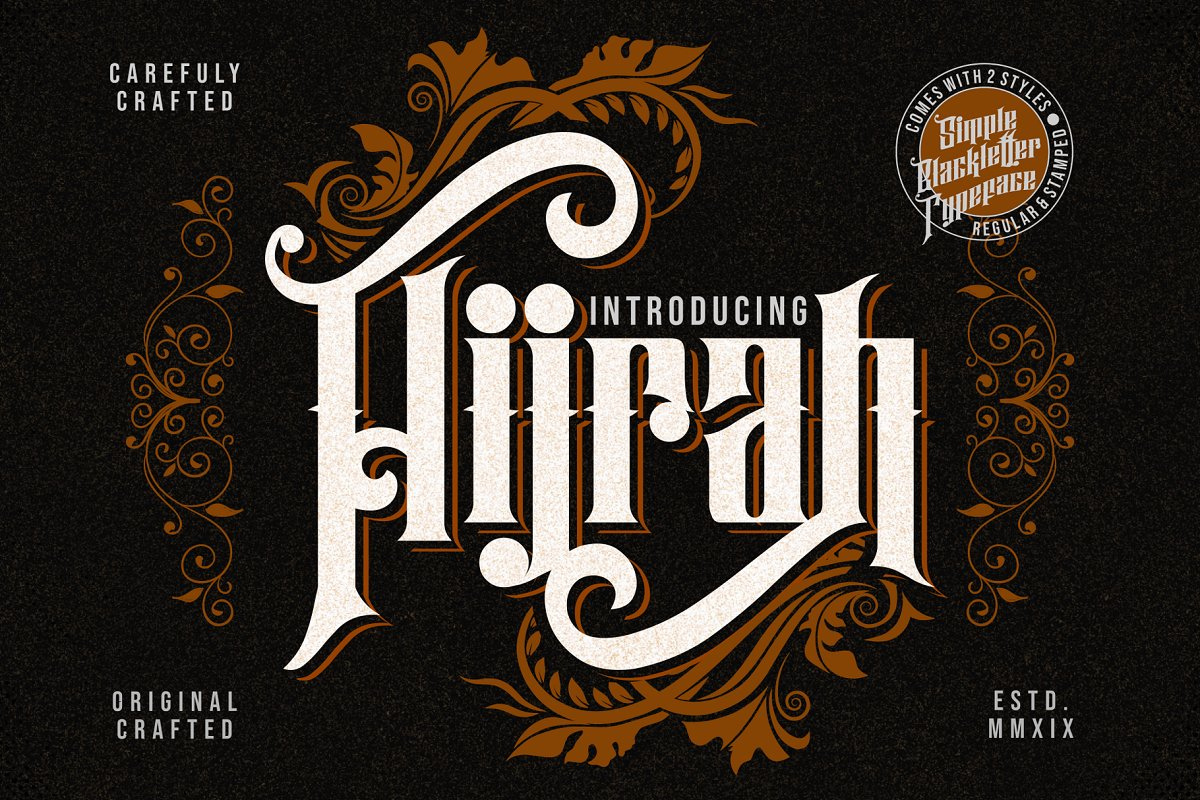
Hijrah - Blackletter Typeface
Hijrah - Blackletter Typeface is perfect for historical manuscript reproductions, medieval-themed publications, gothic architecture signage, traditional calligraphy workshops, ceremonial document designs, heritage foundation materials, classical music concert programs, distinguished academic publications, formal certificate layouts, and prestigious institutional branding.
What makes Hijrah - Blackletter Typeface so exciting is its remarkable ability to embody the profound historical significance and spiritual journey represented by the concept of Hijrah through traditional blackletter forms that seem to carry centuries of scholarly tradition and religious reverence. This distinguished typeface captures the essence of historical migration and spiritual transformation with characters that radiate both medieval gravitas and timeless wisdom. The font's blackletter design elements perfectly balance traditional calligraphic heritage with contemporary functionality, creating an indispensable tool that communicates historical significance, scholarly authority, and spiritual depth, making it essential for projects honoring religious heritage, historical scholarship, and the transformative power of meaningful journeys and spiritual evolution.
Hijrah - Blackletter Typeface comes in multiple font families including Regular, Bold, Light, Ornate, Traditional, Condensed, Extended, and Sacred variations. Each family member maintains the core blackletter characteristics while offering different historical intensity levels and stylistic approaches to suit various traditional and ceremonial design requirements.
The Hijrah - Blackletter Typeface Free Download provides religious organizations and historical institutions with an exceptional resource for creating authentic materials that honor traditional calligraphic heritage while communicating profound spiritual and historical significance. This remarkable typeface distinguishes itself through its unique ability to communicate themes of spiritual journey, historical transformation, and religious reverence. Whether you're developing religious educational materials, creating historical documentation, or designing ceremonial publications, this font ensures your message carries the weight of tradition and the dignity that sacred texts and historical documents deserve.
The sacred precision in Hijrah - Blackletter Typeface makes it particularly effective for religious institutions and historical organizations where conveying authentic traditional authority and spiritual gravitas is crucial for connecting with audiences seeking meaningful connections to religious heritage and historical scholarship. Its traditional letterforms work exceptionally well across both ceremonial print applications and educational digital materials, maintaining consistent historical authenticity and spiritual dignity.
Religious heritage professionals recognize how Hijrah - Blackletter Typeface transforms ordinary text into powerful expressions of spiritual journey and historical significance. The typeface's traditional character set includes special religious symbols, historical decorative elements, and sacred features that enhance the overall reverent atmosphere of any spiritually or historically-focused project.
For creative professionals serving religious organizations, historical societies, and cultural preservation institutions, Hijrah - Blackletter Typeface serves as the perfect foundation for establishing memorable visual identities that capture the essential qualities of spiritual transformation, historical reverence, and traditional authority that define successful projects honoring the profound significance of spiritual journeys and the enduring power of religious and historical heritage.